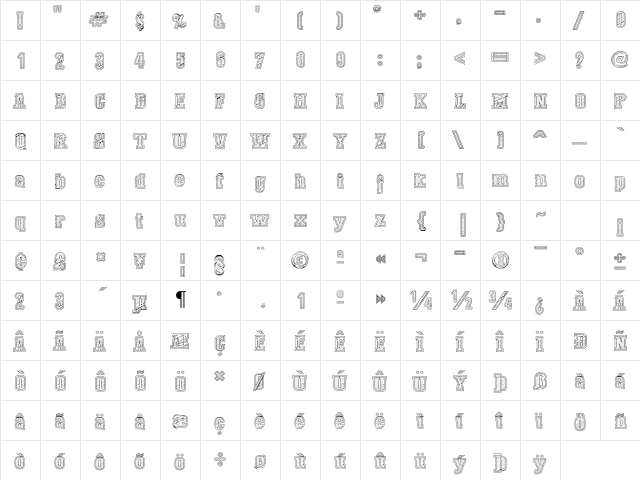
Dust West College Regular
Design Context for Dust West College Typeface
Dust West College brings high-energy athletic personality to the page — its confident, muscular forms are built for impact.
Built for sports team identities, athletic apparel, event posters, and high-energy promotional material.
Pro Tip: Dust West College thrives on contrast — try it large, bold, and tight against a clean background for maximum visual impact.